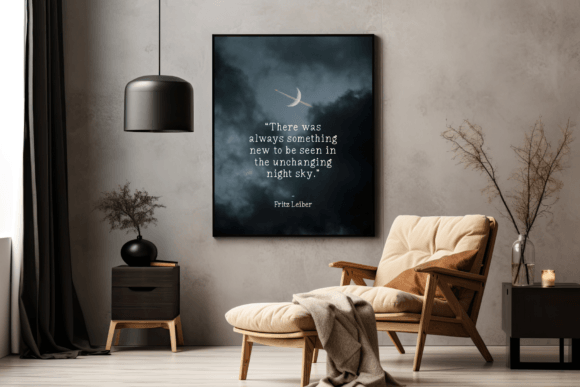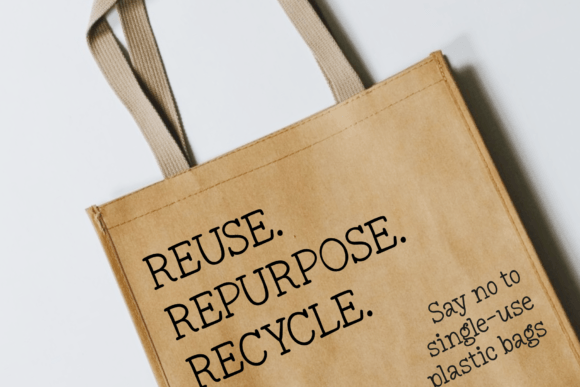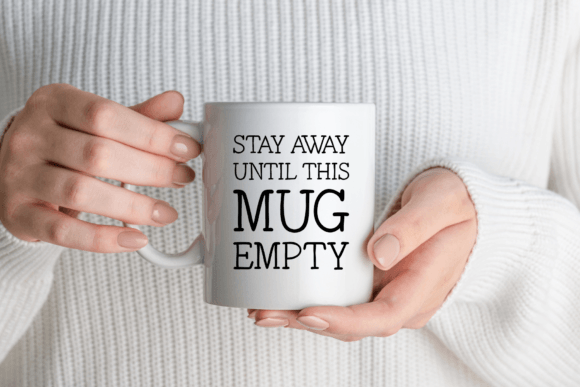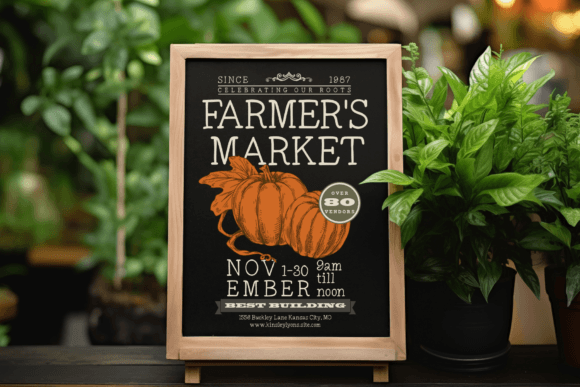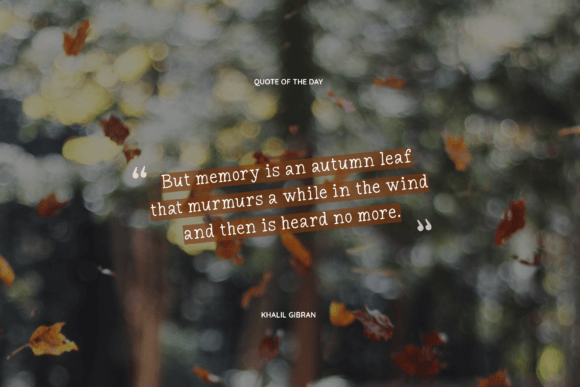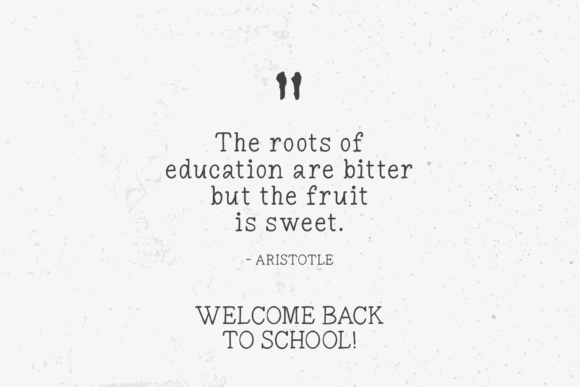
Unveiling Dreamers Typewriter: The Ultimate Font for Vintage Charm and Modern Readability
In the world of typography, few fonts manage to strike a balance between vintage allure and contemporary readability. However, Dreamers Typewriter Font is an exception, beautifully fusing the classic charm of typewriters with the clarity needed for modern designs. This captivating typographic masterpiece is custom-tailored for a variety of projects, including branding, posters, invitations, and more, making it an indispensable tool for designers and crafters alike.
The Distinctive Character of Dreamers Typewriter
Dreamers Typewriter stands out with its unique character, each letter bearing a distinct imperfection that echoes the classic typewriter style. These imperfections do not detract from the font’s readability; instead, they inject a dose of warmth and charisma into any creative endeavor. The result is a font that feels both nostalgic and refreshingly modern, perfect for designers looking to imbue their work with a touch of personality.
Rediscovering the Charm of the Bygone Era
In an age dominated by digital technology and sleek, minimalist designs, Dreamers Typewriter offers a refreshing departure. It invites designers to rediscover the charm of the bygone era, when typewriters were the primary means of written communication. The font’s design meticulously captures the essence of this era, from the slight irregularities in letterforms to the overall aesthetic that screams vintage. Yet, it does so without compromising on readability or versatility.
Breathing Life into Artistic Expressions
Dreamers Typewriter is more than just a font; it’s a tool designed to breathe life into your artistic expressions. Whether you’re working on a branding project, crafting an invitation, or designing a poster, this font can add a unique character that sets your work apart. Its ability to convey warmth, nostalgia, and a sense of authenticity makes it particularly well-suited for projects where personality and charm are key.
Applications of Dreamers Typewriter
The versatility of Dreamers Typewriter Font makes it suitable for a wide range of applications. Here are a few ideas to get you started:
- Branding: Use Dreamers Typewriter to add a vintage touch to your brand’s logo or marketing materials, creating a memorable and distinctive identity.
- Posters and Flyers: Stand out with eye-catching posters and flyers that combine the elegance of classic typography with the charm of typewritten text.
- Invitations: Whether it’s a wedding, a birthday party, or any other celebration, Dreamers Typewriter can add a personal and nostalgic touch to your invitations.
- Packaging: Add a unique character to your product packaging with Dreamers Typewriter, making it more appealing and distinctive on store shelves.
Why Choose Dreamers Typewriter?
Choosing Dreamers Typewriter Font for your design projects comes with several benefits:
- Unique Character: Its distinctive, slightly imperfect characters offer a personality that is hard to find in more uniform, digital fonts.
- Versatility: Suitable for a wide range of projects, from digital content to print materials.
- Readability: Despite its vintage inspiration, Dreamers Typewriter maintains excellent readability, making it functional as well as beautiful.
- Nostalgic Appeal: It taps into the nostalgia for the bygone era, providing an emotional connection with the audience.
| Font Name | Dreamers Typewriter Font |
| Author | jinanstd |
Dreamers Typewriter Font is a typographic masterpiece that beautifully balances vintage charm with modern readability. Its unique character, versatility, and nostalgic appeal make it an excellent choice for designers and crafters looking to add a touch of personality to their projects. Whether you’re aiming to create branding materials, posters, invitations, or any other design that requires a distinctive touch, Dreamers Typewriter is sure to breathe life into your artistic expressions.